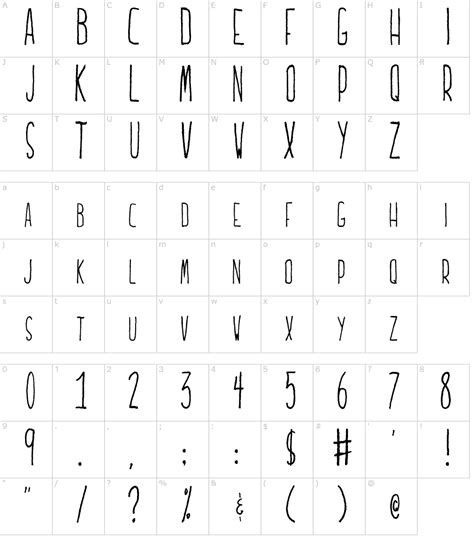
Boost Your Website's Readability: Lucidity Font Expansion Guide
Hey guys! Ever stumble upon a website where the text is so tiny you have to squint just to read it? Or maybe the font is so clunky it makes your eyes glaze over? It’s a frustrating experience, right? Well, that’s where the magic of lucidity font expansion comes in. In this guide, we’re diving deep into how you can make your website’s text not just readable but also a joy to consume. We’ll explore why lucidity font size is crucial for user experience and how you can implement effective expand font lucidity techniques.
The Power of a User-Friendly Font
Let’s be real, in today’s digital world, content is king. But what’s the point of having amazing content if nobody can actually read it? That’s why understanding the fundamentals of typography is so important. Lucidity , in this context, refers to the clarity and ease with which a font can be read. A lucid font is one that’s designed to be easily distinguishable, with clear letterforms that don’t strain the eyes. Think of it as the secret weapon in your website’s arsenal.
When we talk about lucidity font size , we’re specifically addressing the size of the text. A font that’s too small is a major turn-off. It forces users to zoom in, which can disrupt the overall layout and create a clunky experience. Conversely, a font that’s too large can overwhelm the page, making it look cluttered and unprofessional. The sweet spot is all about balance, and that’s where expand font lucidity strategies come into play.
Why Font Size Matters
• User Experience (UX): The primary goal of any website should be to provide a positive user experience. A comfortable reading experience is essential. It keeps visitors engaged, encourages them to explore your content, and increases the likelihood of them returning. Remember, happy users are loyal users.
• Accessibility: Making your website accessible to everyone is super important. People with visual impairments may struggle with small font sizes. By adjusting your lucidity font size , you’re making your content more inclusive and ensuring everyone can access your information.
• SEO benefits: While not a direct ranking factor, a well-designed website with a good user experience signals quality to search engines like Google. Happy users spend more time on your site, which indirectly boosts your search engine rankings.
• Readability: This is the cornerstone. A clear and readable font size allows your audience to absorb information more easily. It reduces eye strain and cognitive load, making the overall experience much more pleasant.
Implementing Effective Lucidity Font Expansion Techniques
Alright, so how do we actually put these ideas into action? Here are some practical tips and techniques to help you expand font lucidity on your website. Implementing these strategies is critical for enhancing your website’s overall usability and making sure your content shines.
1. Choose the Right Font:
This might seem obvious, but the font you choose is the foundation of lucidity . Here’s a breakdown of things to consider:
• Serif vs. Sans-Serif: Serif fonts (like Times New Roman or Georgia) have little strokes, called serifs, at the ends of the letters. Sans-serif fonts (like Arial or Helvetica) do not. Both have their pros and cons. Serif fonts can often create a more traditional and formal aesthetic, and some studies suggest they may be easier to read in print. Sans-serif fonts are generally considered more modern and clean, and are often preferred for digital displays.
• Font Weight: The weight of your font (bold, regular, light) also plays a huge role. For body text, you’ll generally want to stick with a regular or slightly bolder weight to make it easy to read. Avoid using super-light fonts, which can be hard to see.
• Font Legibility: Always prioritize legibility. Test your chosen fonts on different devices and screens to ensure they’re clear and easy to read. Avoid fonts that are overly stylized or fancy, as these can distract readers from your content.
2. Set a Proper Base Font Size:
This is a critical element when considering lucidity font size . The base font size is what sets the stage for everything else. A good starting point is usually between 16px and 20px for body text. This size tends to be comfortable for most readers. If you’re targeting an older audience, consider bumping it up a bit. Always test different sizes and see what looks best on your website. Use relative units like em or rem instead of absolute units like px for better responsiveness.
3. Use Relative Units for Font Sizing:
Instead of using fixed pixel values (px), opt for relative units like em or rem . This is super important because it makes your website more responsive and adaptable to different screen sizes. Here’s the difference:
Conclusion: Mastering Lucidity Font Expansion for a Better Web
Alright guys, we’ve covered a lot of ground! By understanding the importance of lucidity font size and implementing effective expand font lucidity techniques, you can significantly improve the readability and user experience of your website. Remember to choose the right font, set a comfortable base font size, use relative units, leverage whitespace, and test your website on different devices. With these tips, you’ll be well on your way to creating a website that’s not only visually appealing but also a joy to read. Go forth and make the web a more readable place!